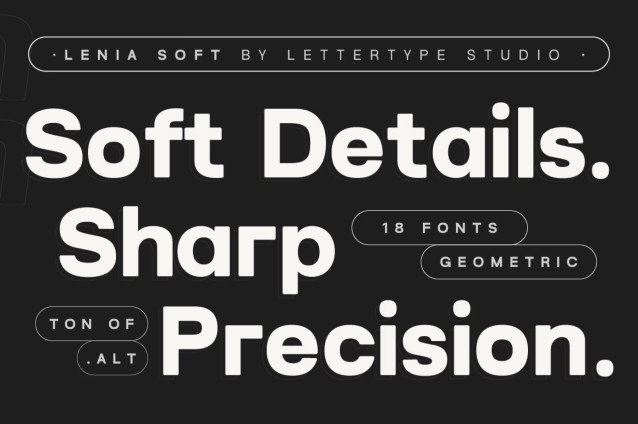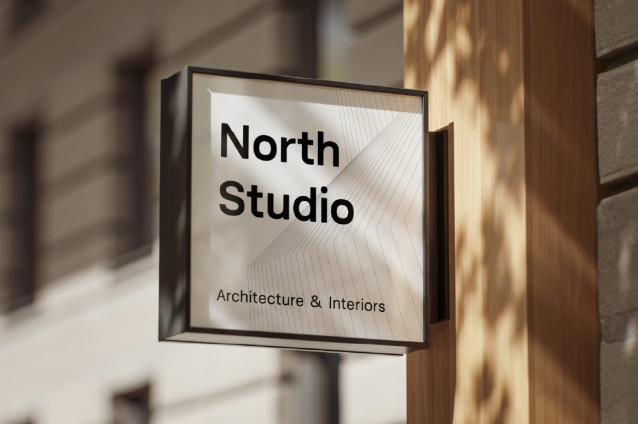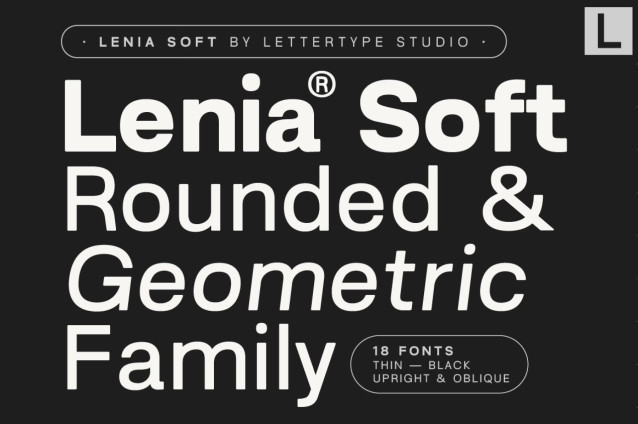
Lenia Soft was created as the softer evolution of Lenia Sans, preserving its geometric foundation while introducing rounded terminals that create a warmer, more inviting visual experience. Rather than becoming playful or overly rounded, every curve has been carefully refined to maintain the clean, premium aesthetic that makes the family suitable for professional branding. This balance between precision and softness gives Lenia Soft a timeless appearance that adapts naturally across a wide range of creative industries.
Designed as a complete family system, Lenia Soft performs beautifully in branding, editorial publishing, luxury packaging, cosmetics, fashion, architecture, hospitality, corporate communication, websites, mobile applications, UI/UX interfaces, presentations, advertising campaigns, and social media content. Its consistent proportions and optical balance allow designers to create clear hierarchy while maintaining visual harmony from large headlines to small interface text.
The family includes 18 carefully crafted styles from Thin to Black with matching Oblique companions, offering maximum flexibility for professional typography. Advanced OpenType features include stylistic alternates, ligatures, superior and inferior figures, fractions, circled numerators, arrows, and extensive Latin language support. Whether you’re building an elegant visual identity or a modern digital experience, Lenia Soft delivers clarity, versatility, and contemporary sophistication in every weight.